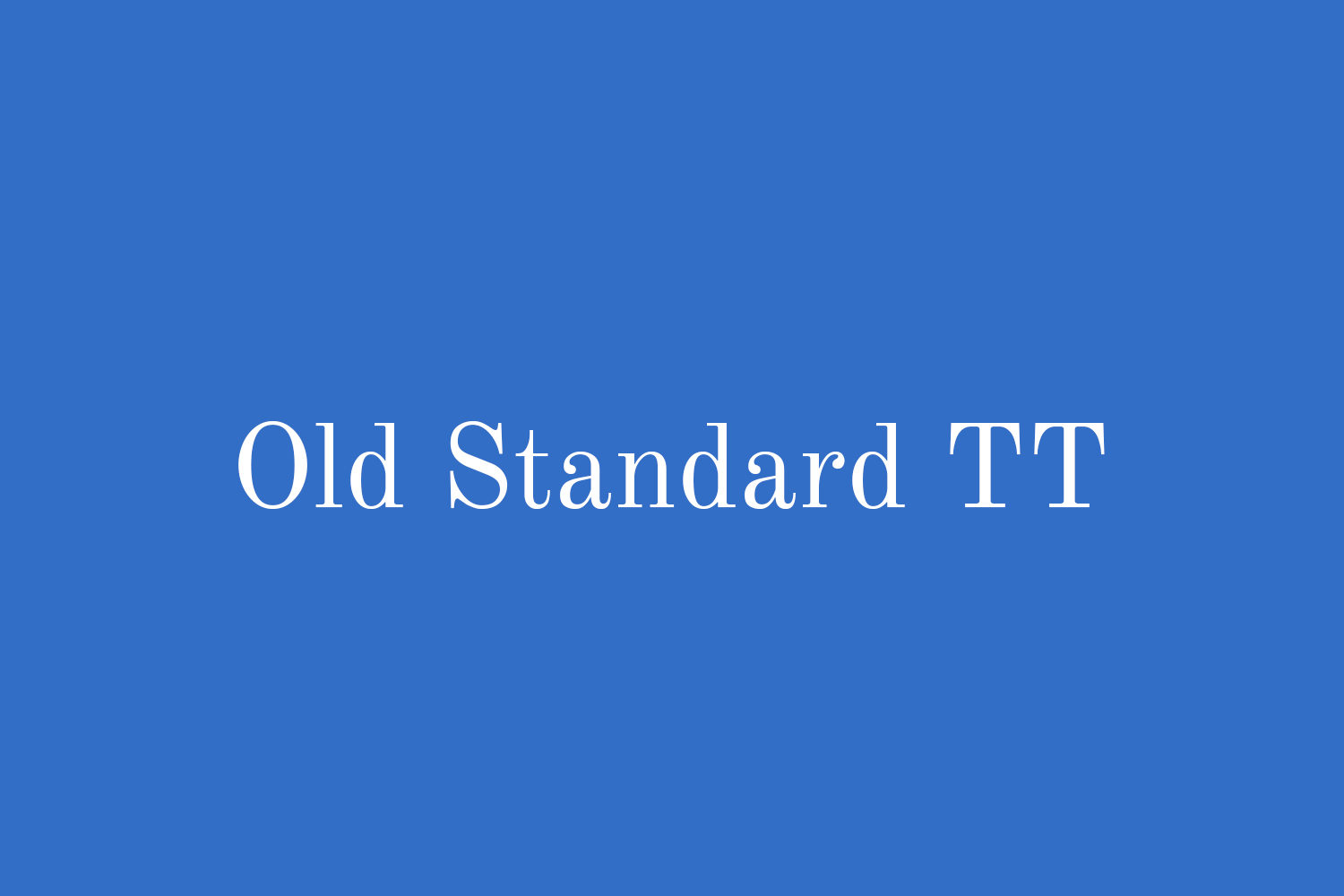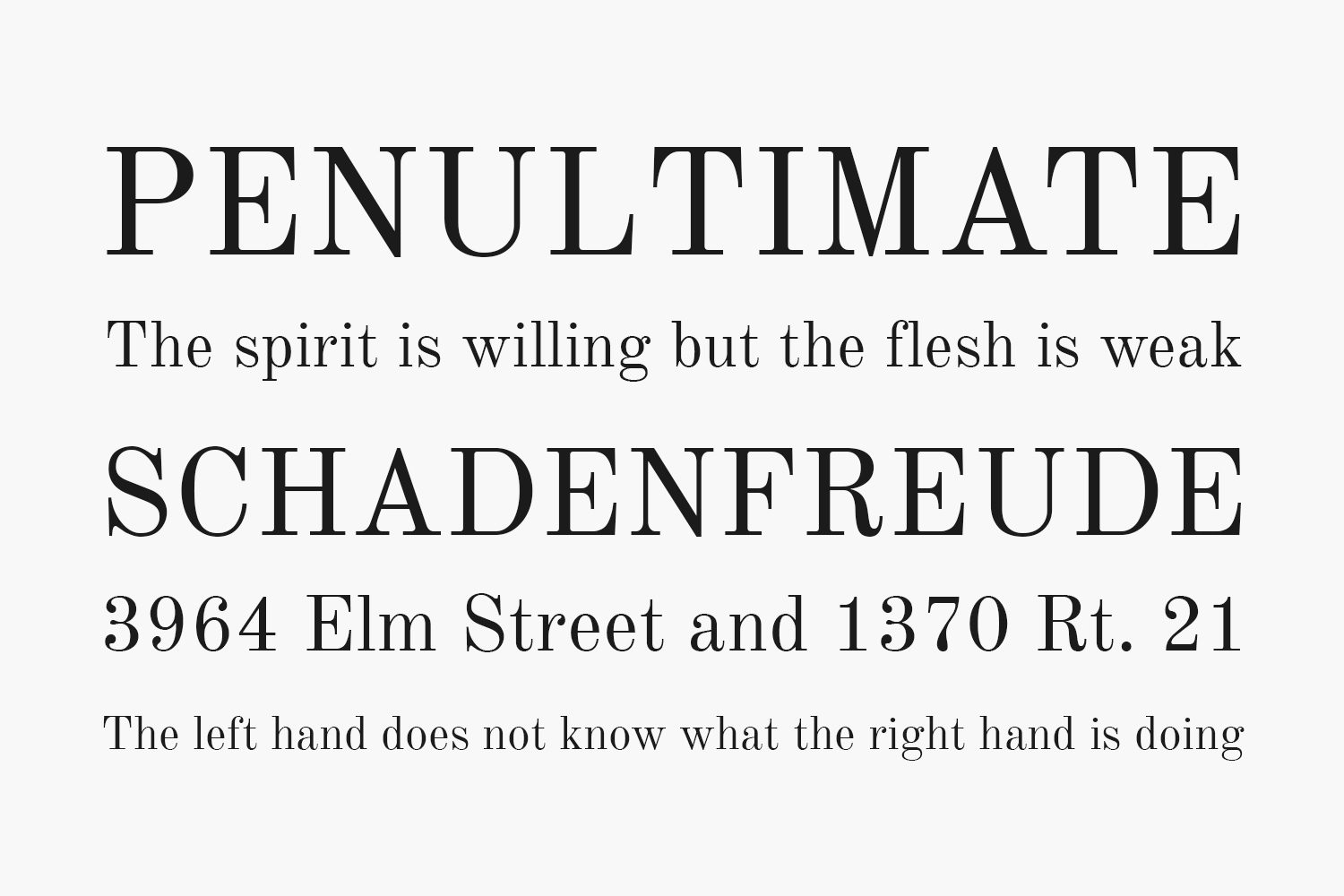
The Old Standard Free Font Family is an attempt to revive a specific type of Modern (classicist) style of serif typefaces, very commonly used in various editions printed in the late 19th and early 20th century, but almost completely abandoned later. Although contemporary typographers often consider this lettertype obsolete and out-of-fashion, it still has at least two advantages:
-the classicist style still can be considered a good choice for typesetting scientific papers, especially on social and humanitarian sciences, as its specific features are closely associated in the people’s eyes with old books they learned on;
-the most beautiful examples of Greek and Cyrillic lettertypes were all based on the Modern style, so that for those scripts “Modern” fonts are much more appropriate than any contemporary (e. g. Times-based) designs.
That’s why the Old Standard font family has two main purposes: it is intended to be used as a specialized font for philologists (mainly classicists, germanists and slavists) and also as a general-purpose font for typesetting various editions in languages which use Greek or Cyrillic script. For this reason Old Standard provides glyphs for a wide range of Latin, Greek and Cyrillic characters.
The name “Old Standard” was selected as opposed to the “Obyknovennaya Novaya” (“New Standard”) typeface, widely used in the Soviet typography, which represents another, slightly different type of the same Modern style. The digital version of this font is now available from Paratype (http://www.paratype.ru). Of course this name doesn’t look very original, but it seems to be a good choice for a revival of the most common lettertype of the early 20th century.